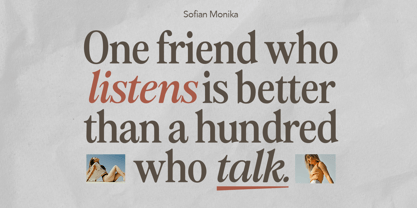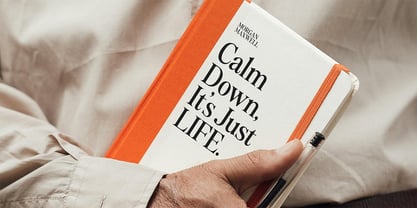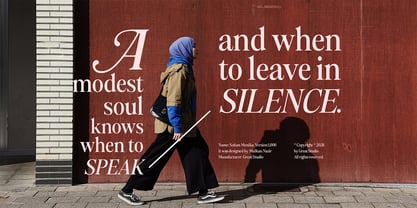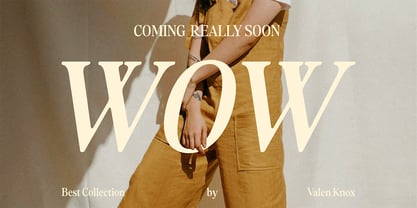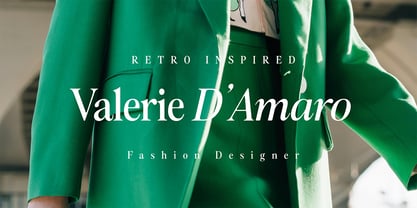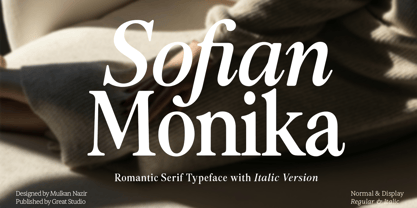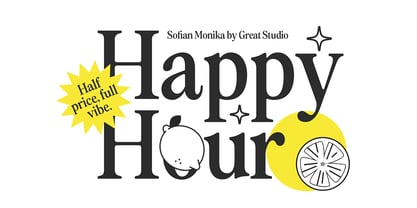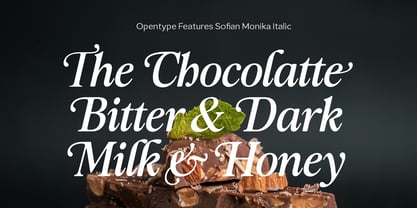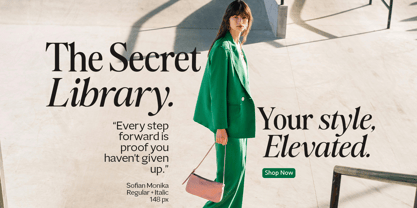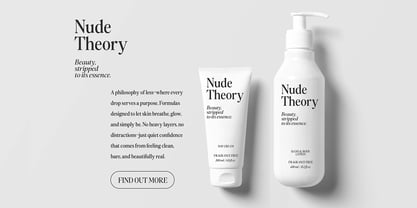
Sofian Monika
by Great Studio
The Sofian Monika Font Family was designed by Mulkan Nazir and published by Great Studio. Sofian Monika contains 8 styles and family package options. More about this family
Sofian Monika is a classic-style serif font that exudes an elegant, warm, and memorable feel. With smooth yet firm letterforms, as well as a touch of traditional curved lines, this font revives the beauty of past designs in a modern look.   This font combines strong serif elements with typical old style characteristics: medium contrast, slanted axis, and decorative details at the ends of letters. It is suitable for use in nostalgic themed projects, classic editorials, luxury branding, book design, invitations, and more. Features: - Classic and timeless serif style - Suitable for headlines, editorials, and visual identities - Has a refined and elegant character - Gives a warm and emotional impression in design   Sofian Monika is not just a font, but a feeling that is evoked through letterforms.
Designers: Mulkan Nazir
Foundry: Great Studio
Sofian Monika